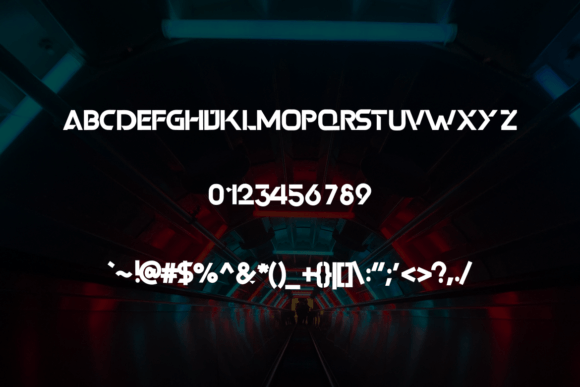
Introduction to Jarviz Pro Font
Do you ever get that creative itch and just want to break free from the ordinary? For designers, that moment often comes when brainstorming ideas for a new project. It’s when you crave something unique, something that stands out and makes a statement. That’s exactly what the Jarviz Pro Font delivers – a high-quality display font that’s bold, quirky, and perfect for making your creative project shine.
Whether you’re working on a design for a poster, a logo, or even a website, the Jarviz Pro Font is a valuable resource that can elevate your design to the next level. Its transparent background and modern aesthetic make it a versatile design tool that can be used in a wide range of contexts. And the best part? It’s available for free download, making it an accessible design resource for designers of all levels.
Key Features of Jarviz Pro Font
- High-quality design with a unique, modern aesthetic, making it an excellent resource for creative projects.
Honest Review: Jarviz Pro Font
I recently had the chance to work with the Jarviz Pro Font, and I must say it’s been a game-changer for my design projects. This high-quality font is a fantastic addition to any designer’s toolkit, offering a range of styles and weights to suit various creative projects.
One of the standout features of Jarviz Pro Font is its transparent background, making it incredibly easy to work with. I’ve used it for everything from branding and logos to digital signage and wayfinding systems. The font is also a free download, which is a major plus for designers on a budget.
- May not be suitable for very small text sizes
Overall, I’m thoroughly impressed with the Jarviz Pro Font. Its high-quality design, transparent background, and free download make it an excellent resource for any designer working on a creative project. While it may have some limitations, I believe it’s a worthwhile investment for any serious design professional.
Tips for Getting the Most Out of Jarviz Pro Font
For the best results, use Jarviz Pro Font in conjunction with a high-quality image or design element. Experiment with different font sizes, colors, and styles to find the perfect combination for your creative project. Additionally, take advantage of the transparent background feature to create a seamless design.
Jarviz Pro Font is ideal for a variety of design projects, including business cards, brochures, and presentations. Its high-quality features and transparent background make it a popular choice among designers and non-designers alike. Whether you’re working on a free download project or a paid design job, Jarviz Pro Font is an excellent design resource to have in your toolkit.
Is the Jarviz Pro Font suitable for use on a transparent background?
Yes, the Jarviz Pro Font is designed to be highly versatile and can be used on both colored and transparent backgrounds. Its transparent background makes it easy to layer over images or other design elements, giving you more creative control over your design project.